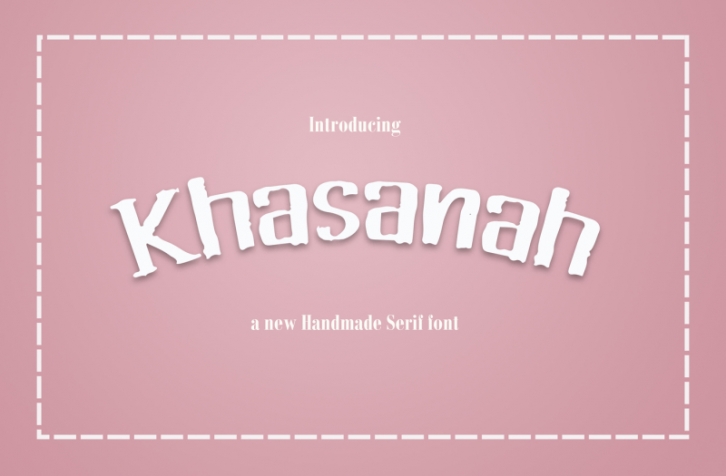
Introducing Khasanah  a Handmade Brush Font Serif ! - A minimalist and awesome character! With three different weights, it's perfect for magazine layouts, invitations, headers, or even large-scale artwork. Font Included